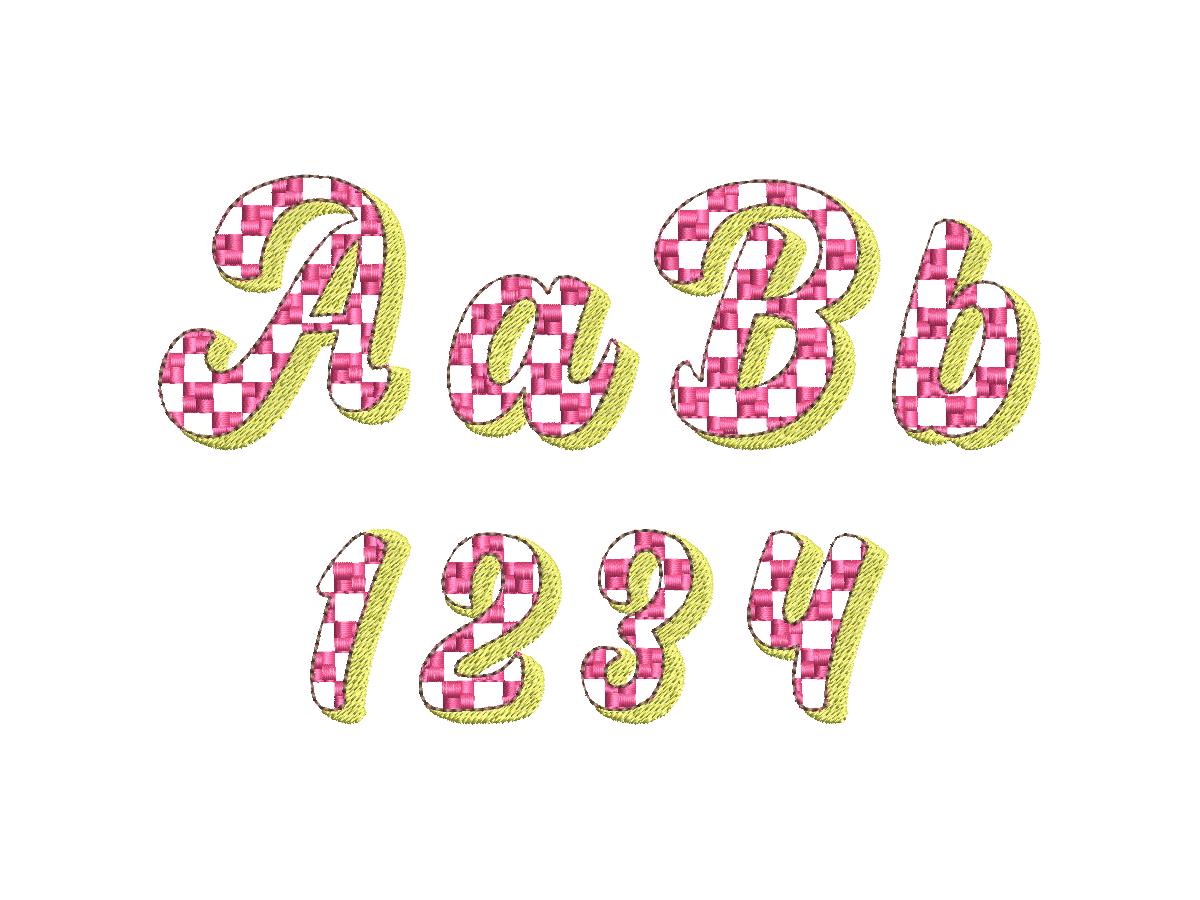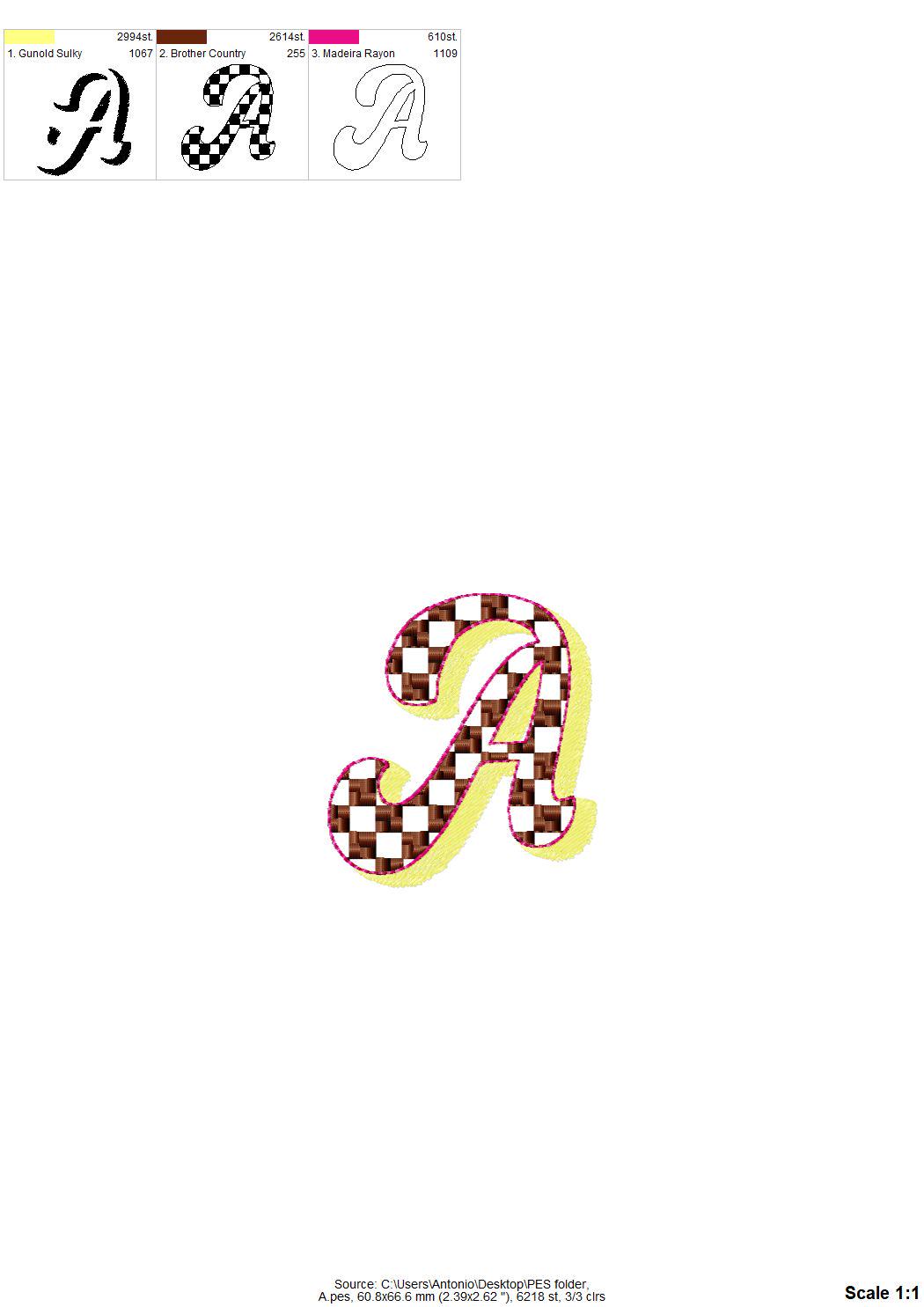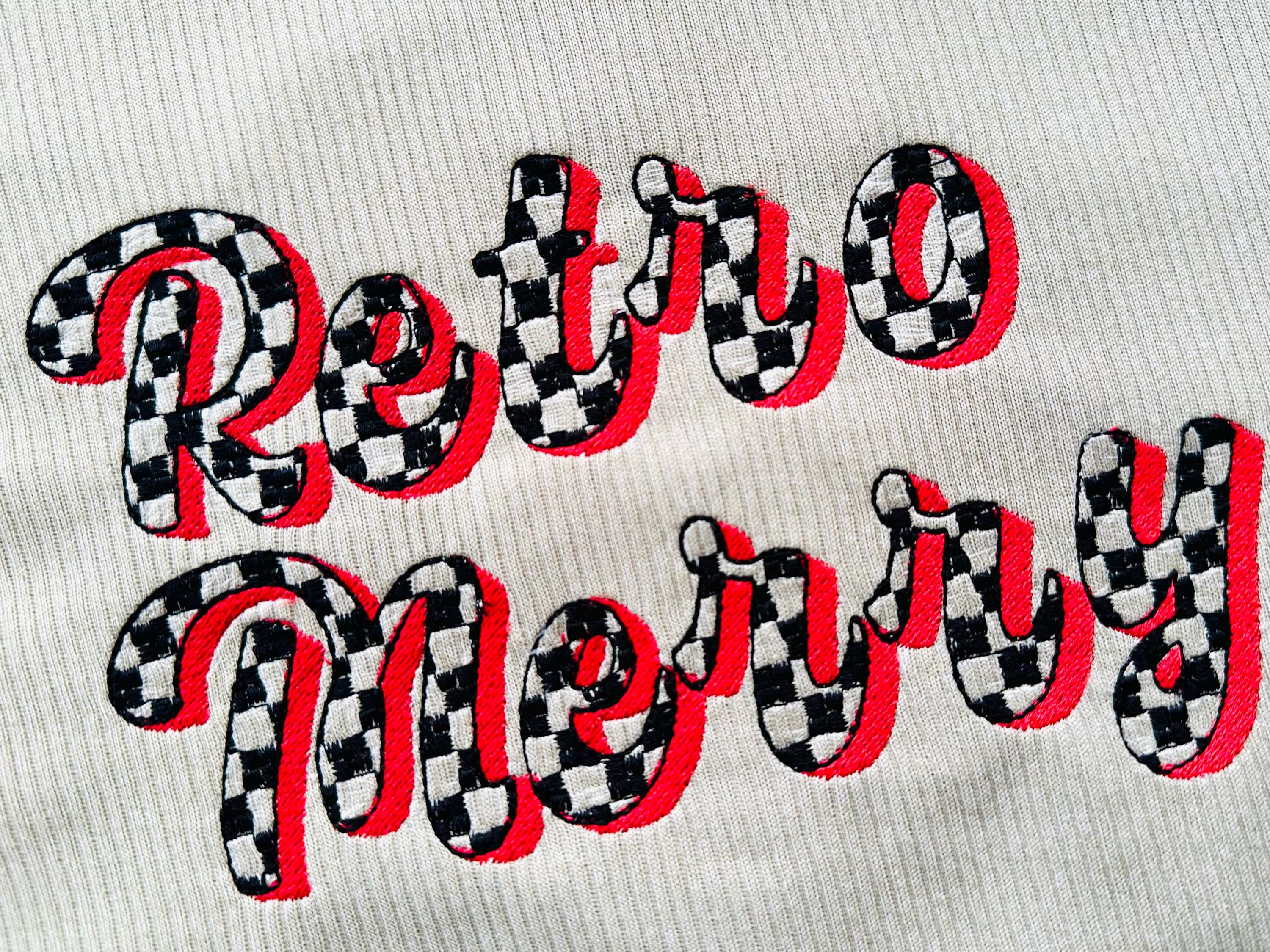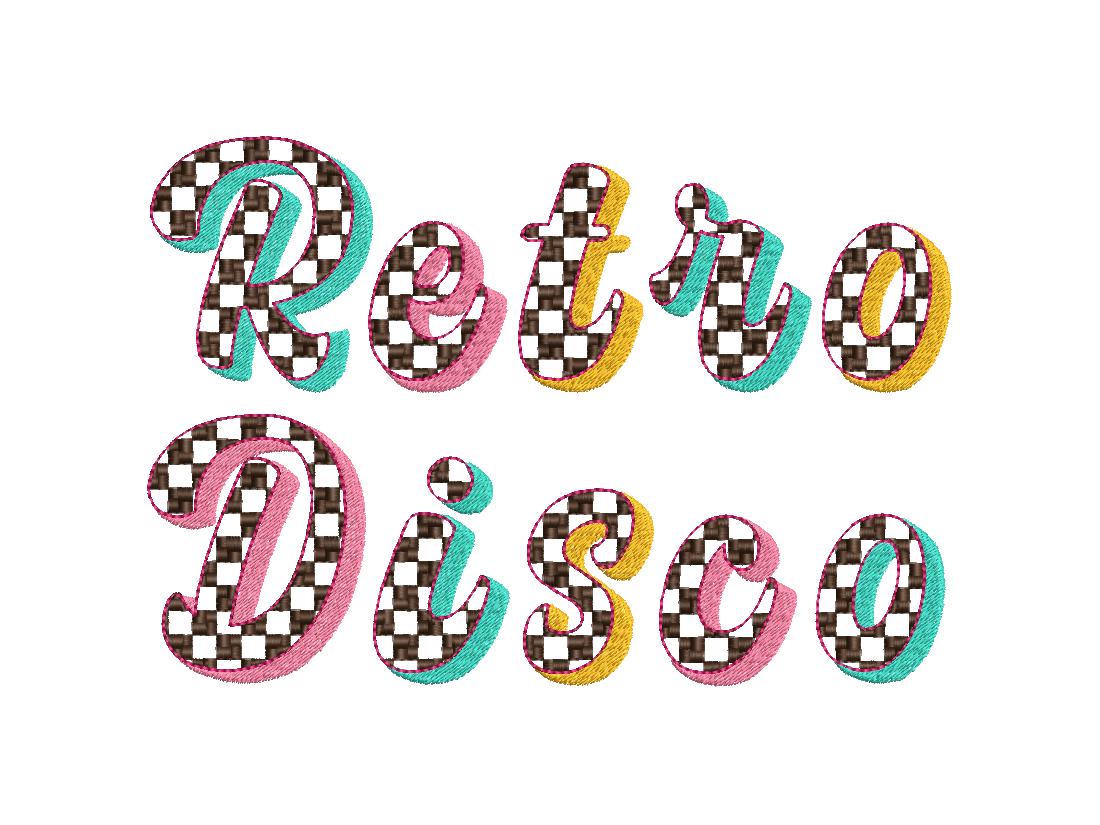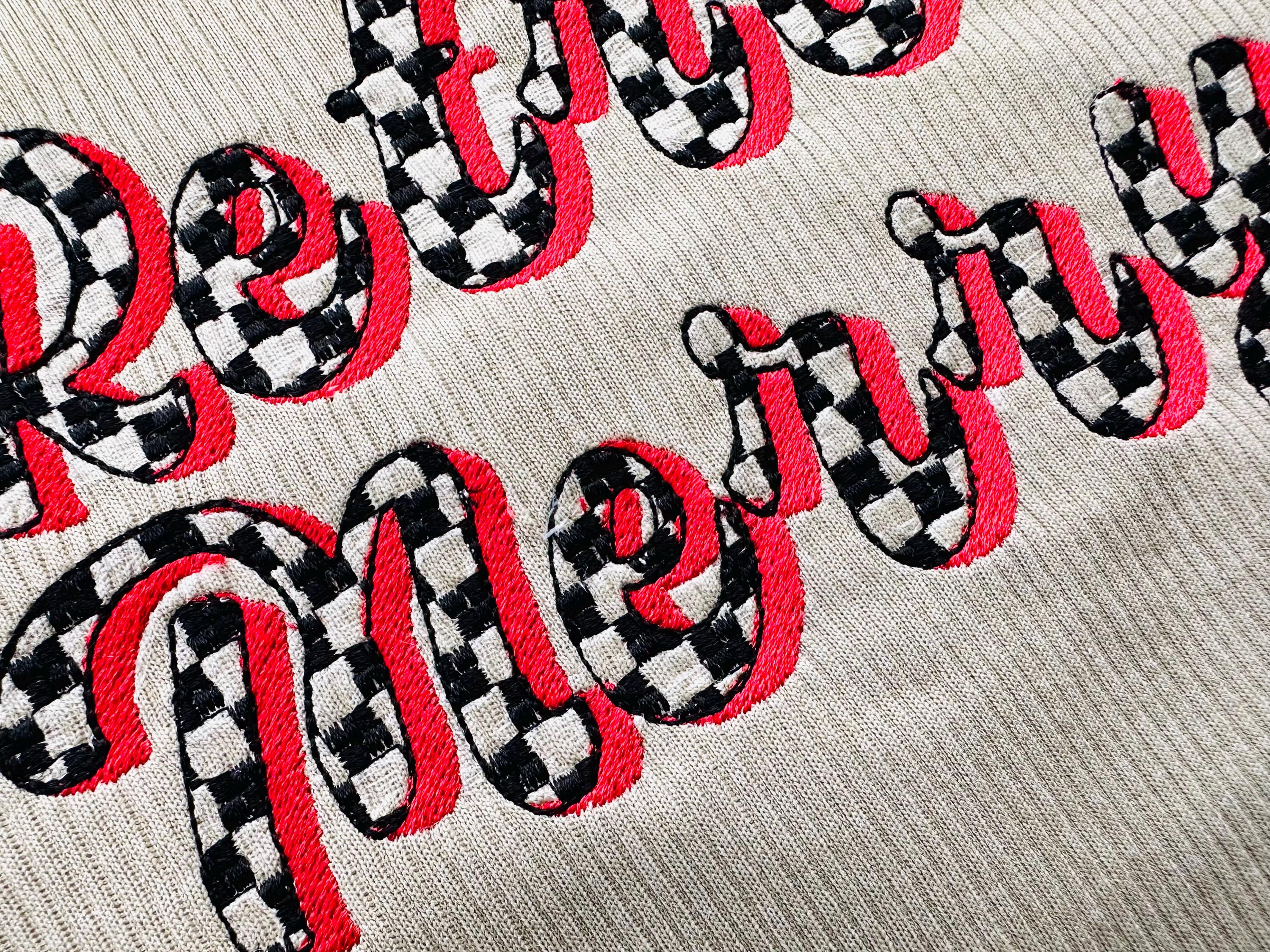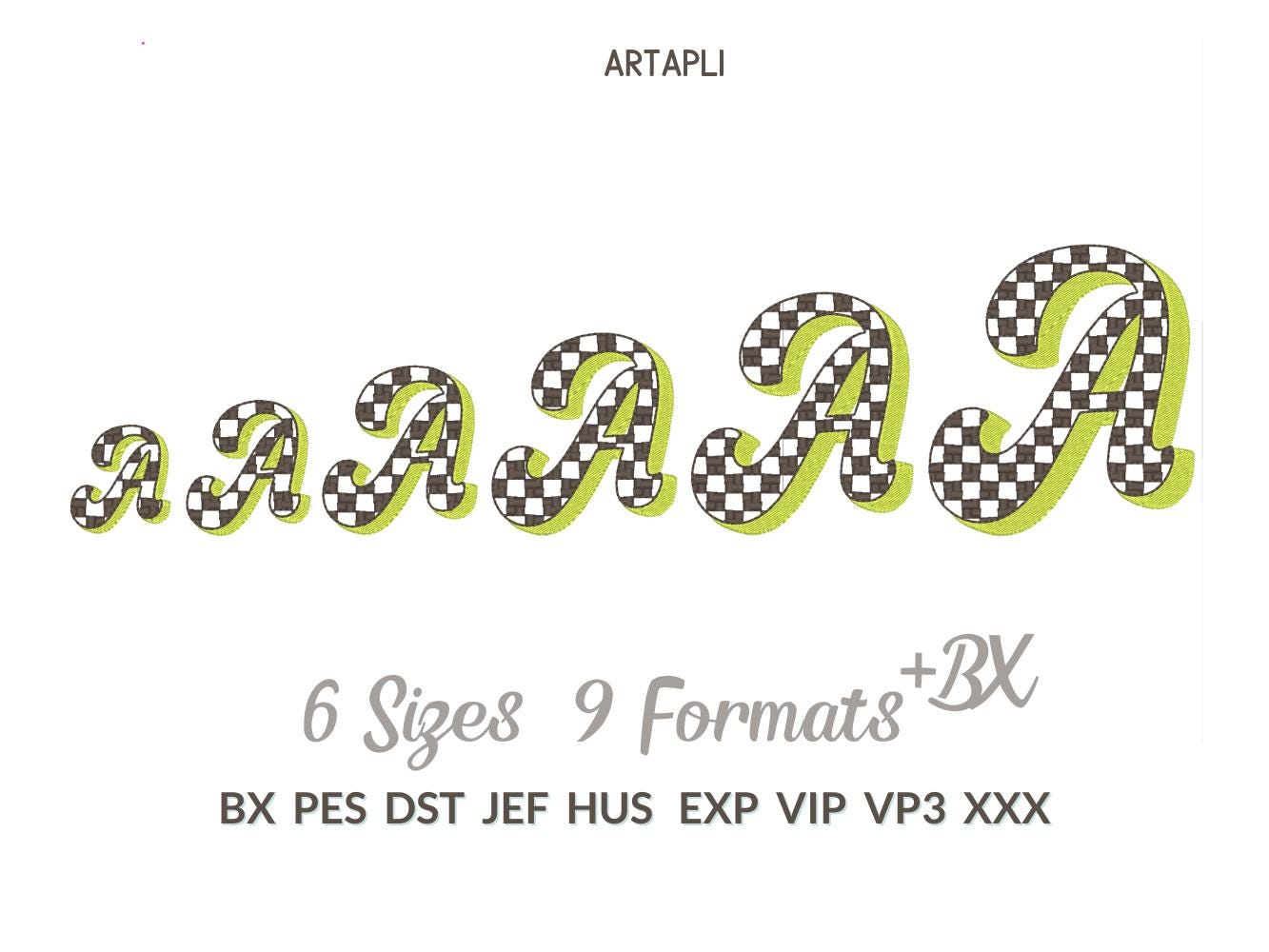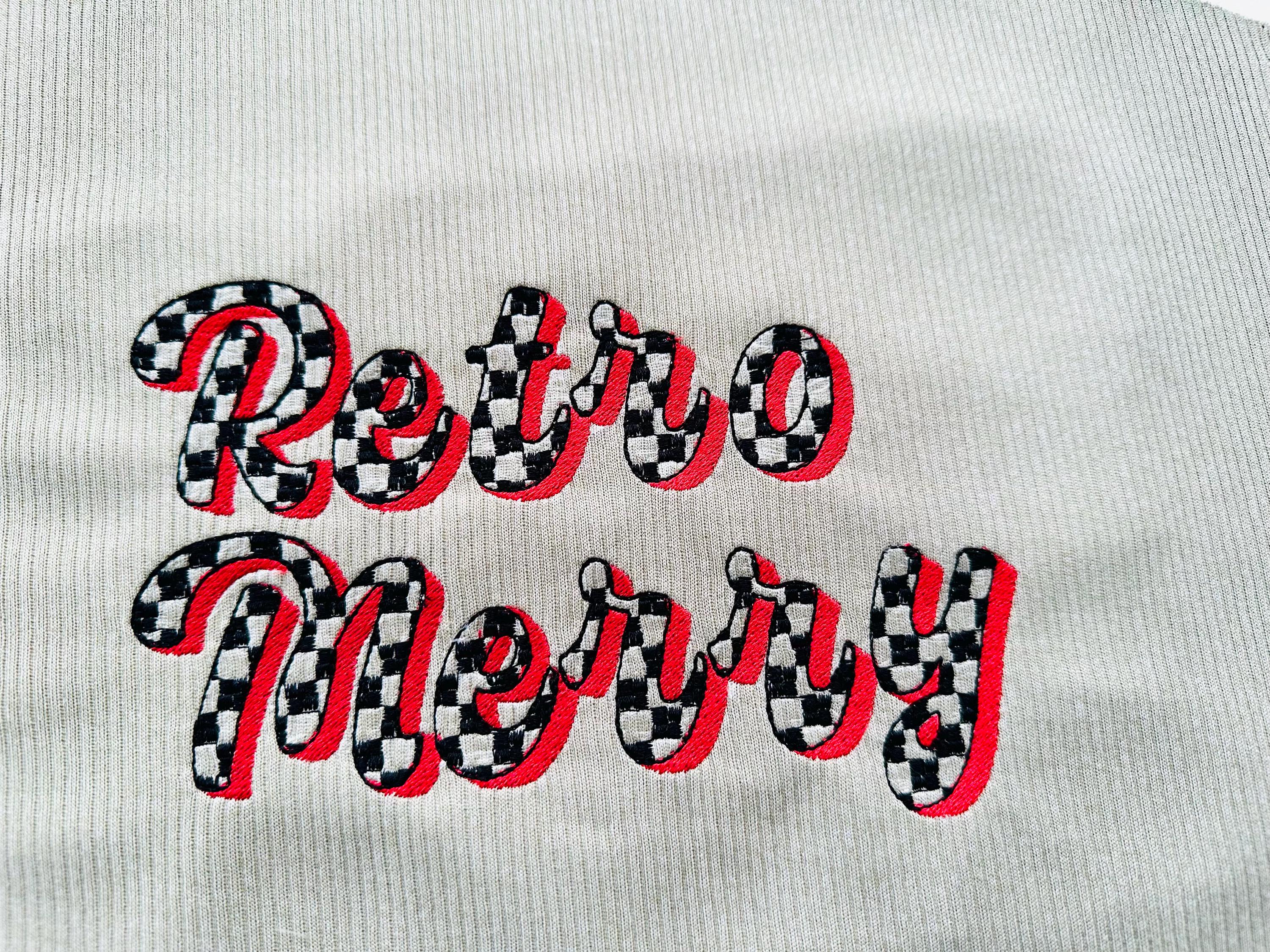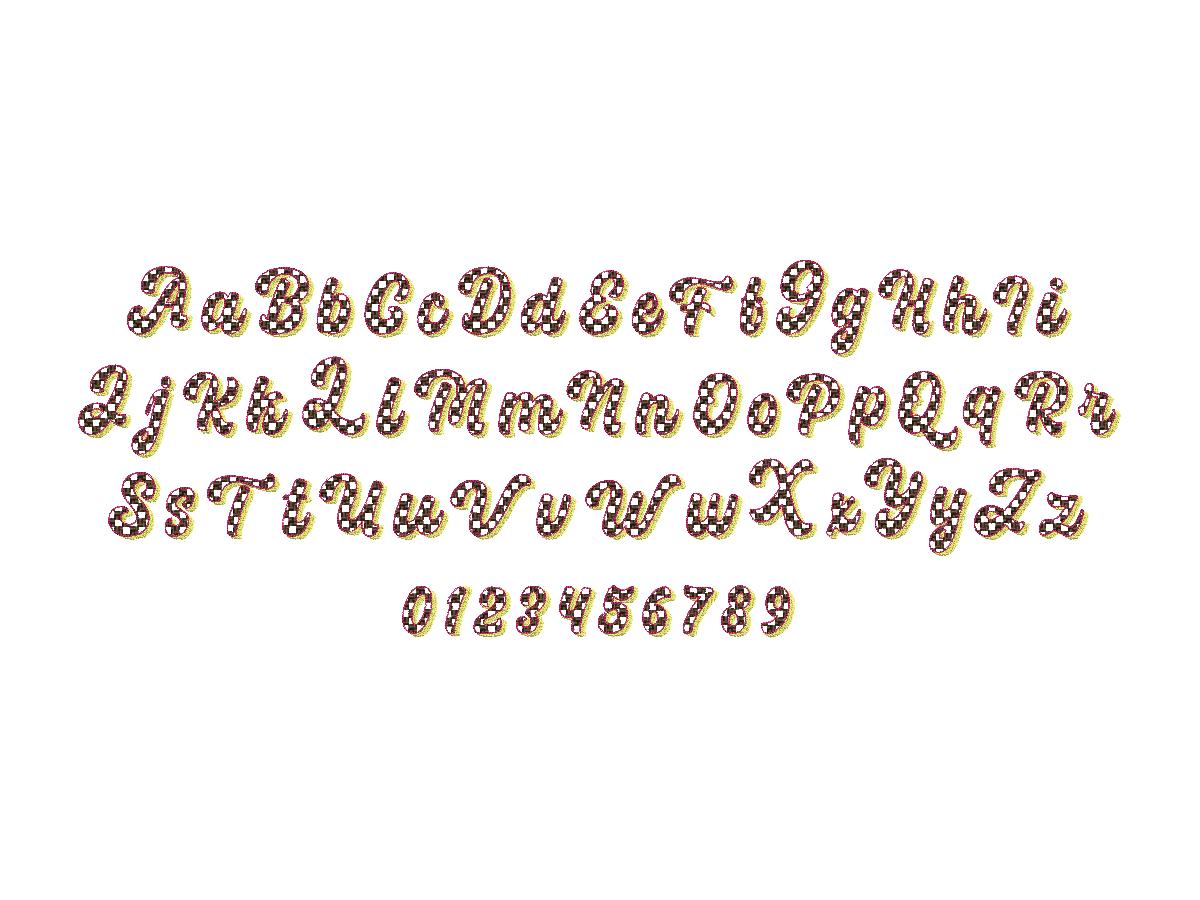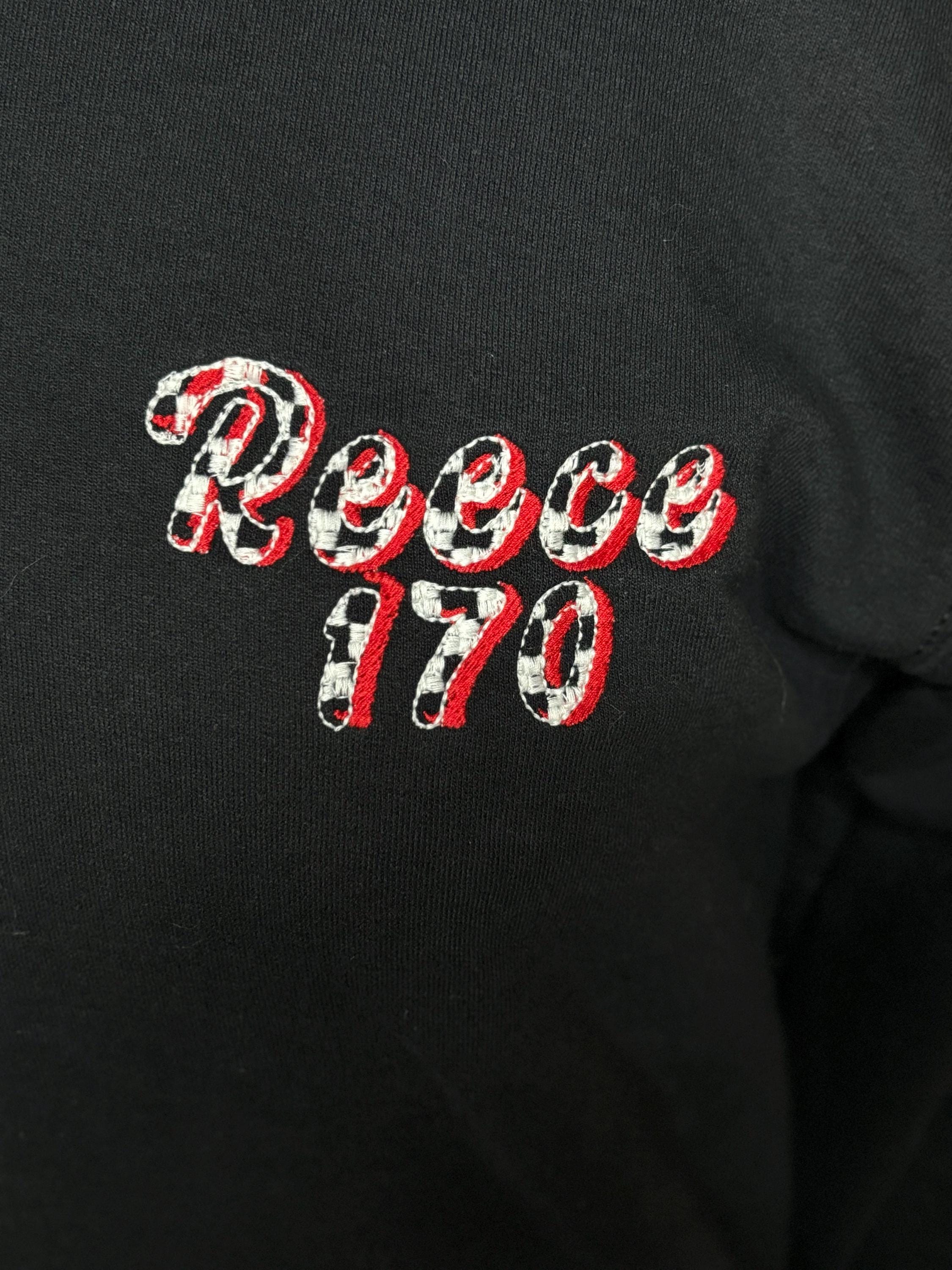
Checks Patterned Shadow script Font 3 colors Alphabet letters numbers machine embroidery designs checkered Font sizes 1.4 to 3.8in
Checks Patterned Shadow script Font 3 colors Alphabet letters numbers machine embroidery designs checkered Font sizes 1.4 to 3.8 inch
Whole alphabet uppercase and lowercase letters Aa-Zz, and numbers.